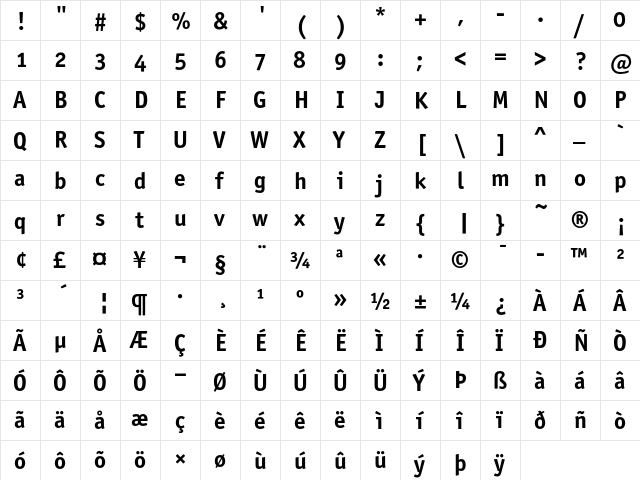
OfficinaSansITC Bold OS Font Preview
OfficinaSansITC Bold OS
Design Context for OfficinaSansITC Typeface
OfficinaSansITC takes a measured approach to typography — its balanced proportions and neutral character make it a reliable workhorse for both digital and print work. Its bold stroke weight gives it real presence on the page.